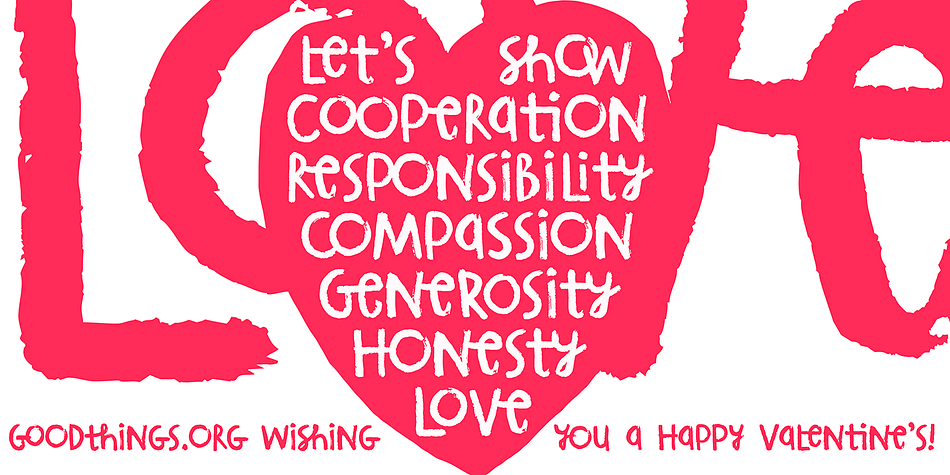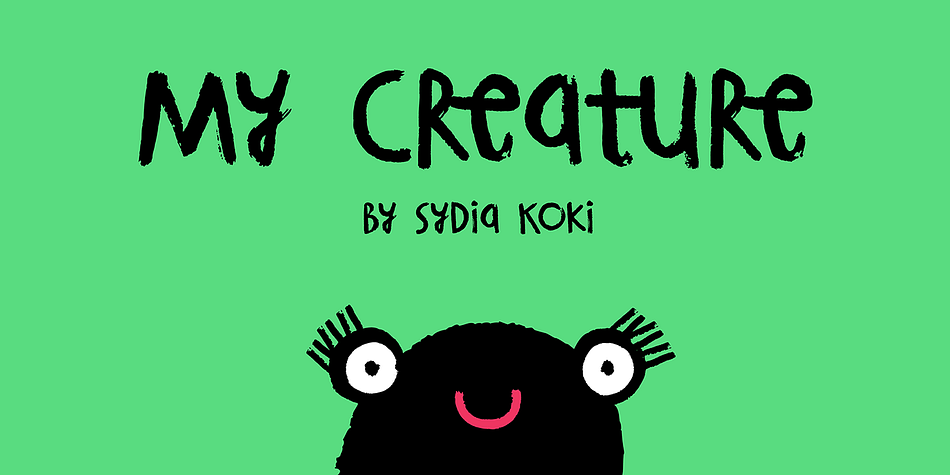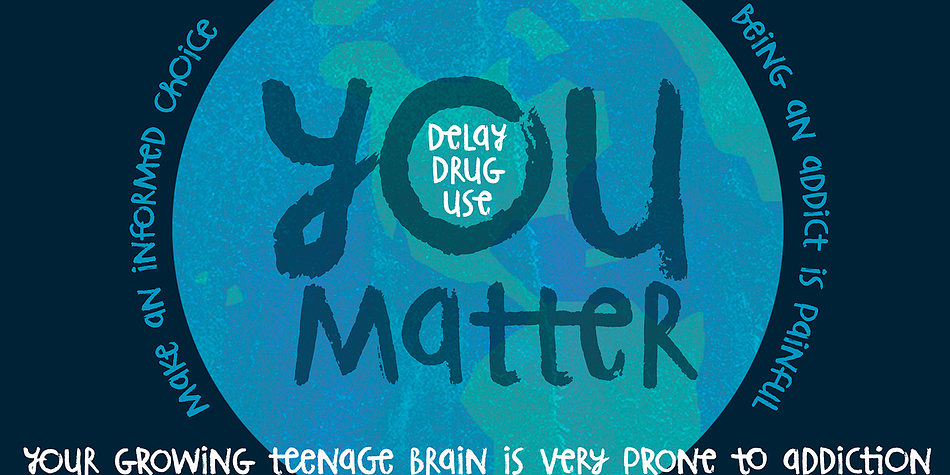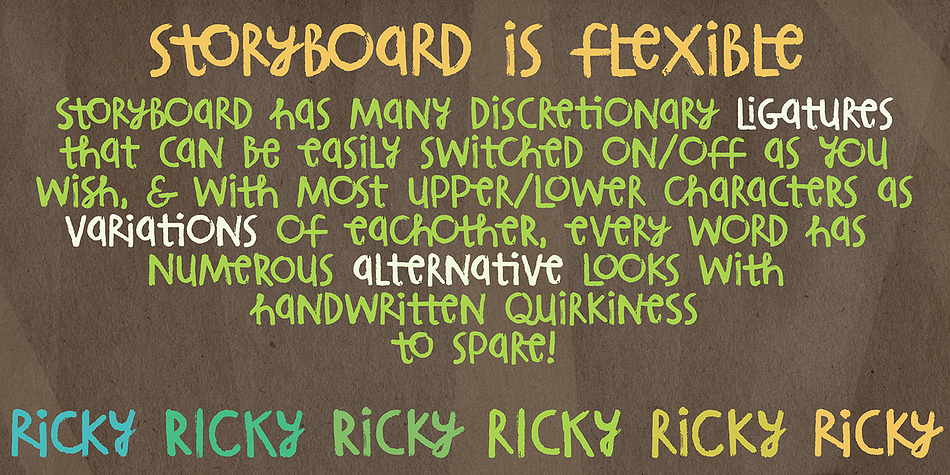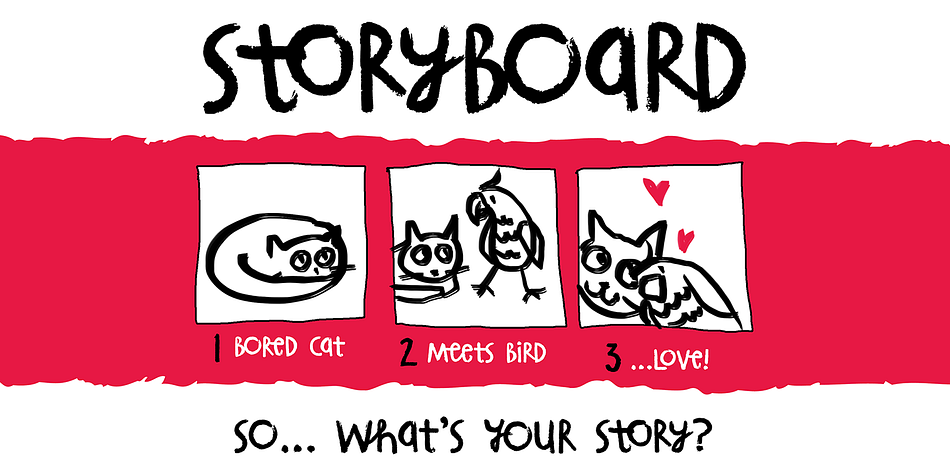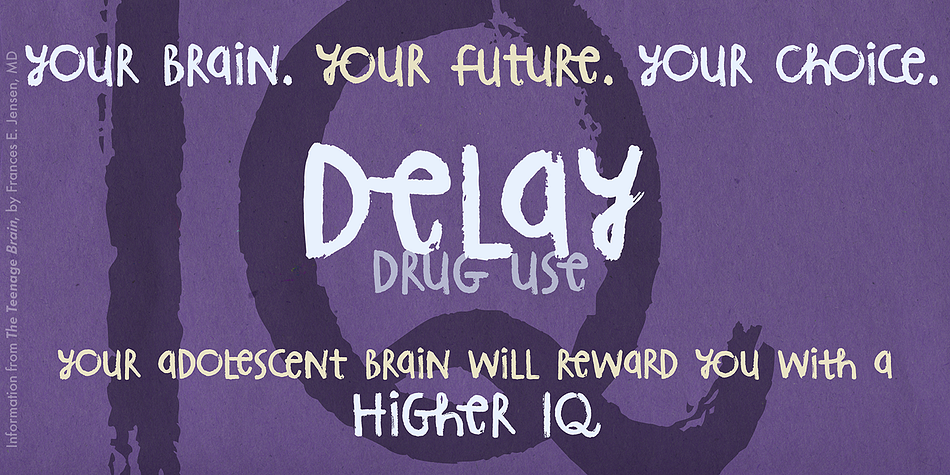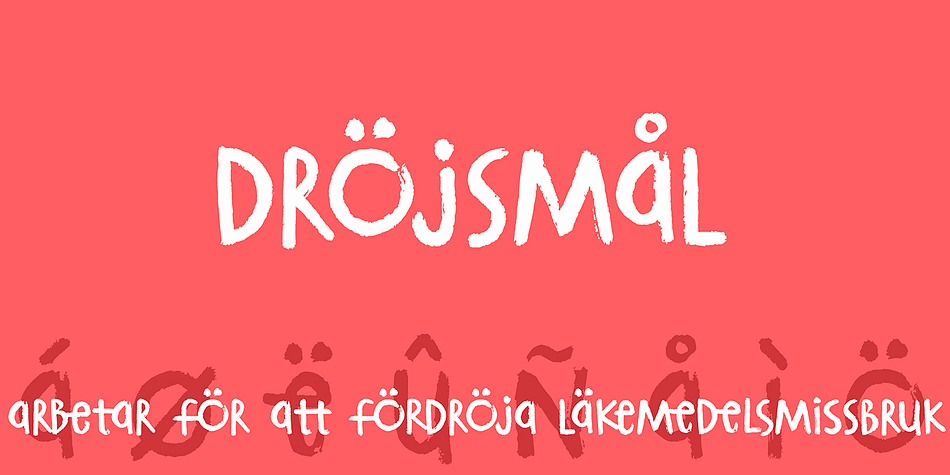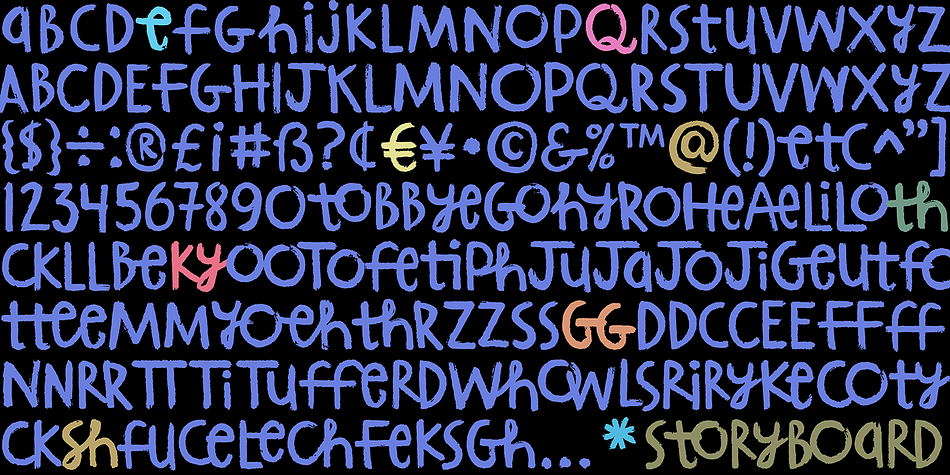
Designed by Amy Dietrich, Storyboard is a hand drawn font published by Atlantic Fonts.
Storyboard is expressive, rough, partly connected and full of painterly, brushed energy like the sketches of a storyboard. It’s bold and kind of edgy, but can be friendly too. There are tons of ligatures you can turn on or off depending on the look you’re after. So what’s your story?